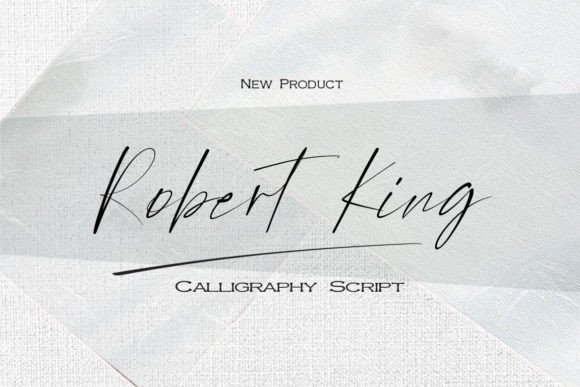
Introducing Robert King, the enchanting script font that will captivate your senses and elevate your designs to new heights. With its delicate strokes and graceful curves, Robert King exudes an air of elegance and sophistication that is sure to leave a lasting impression.
Immerse yourself in the world of calligraphy with Robert King, a font that has been meticulously crafted to evoke the beauty and charm of handwritten scripts. Its natural and flowing style adds a touch of authenticity and warmth to any project, making it the perfect choice for branding, photography, invitations, quotes, watermarks, advertisements, labels, and so much more.
Robert King's versatility knows no bounds, whether you're a seasoned designer seeking to add a touch of class to your creations or a creative enthusiast looking to make a statement. Its exquisite character will elevate your designs, transforming them into captivating works of art.
With Robert King, the possibilities are endless. Create eye-catching logos that leave a lasting impression, design elegant invitations that set the tone for unforgettable events, or craft stunning quotes that inspire and uplift. The delicate flourishes and intricate details of Robert King add a touch of magic to every letter, making your words dance off the page.